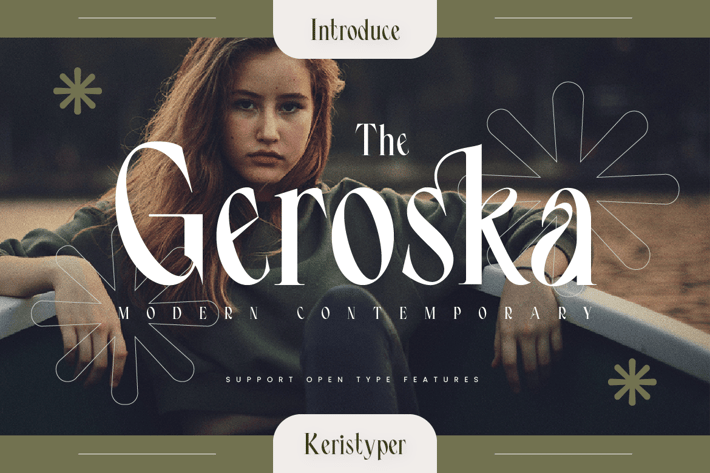
Geroska Font
Geroska Is a serif contemporary inspired by combining Mid-Century, Modern & Aesthetics styles. This font is good for logo design, Social media, Movie Titles, Books Titles, short text even long text letters, and good for your secondary text font with sans or serif.
Standard Uppercase & Lowercase
Multilingual : ä ö ü Ä Ö Ü ß ¿ ¡
Alternate & Ligature